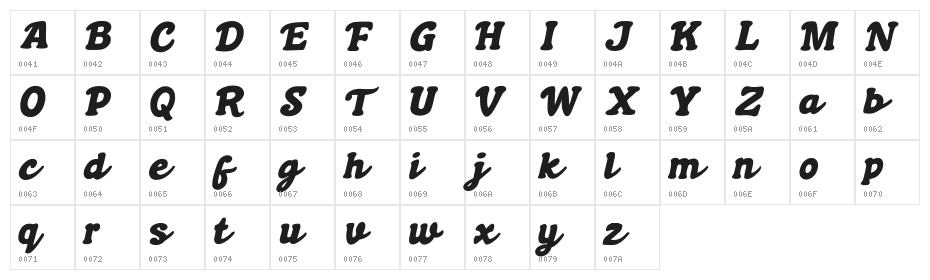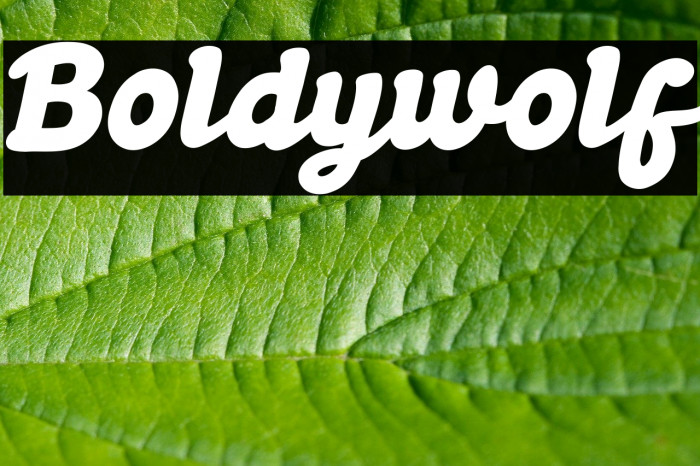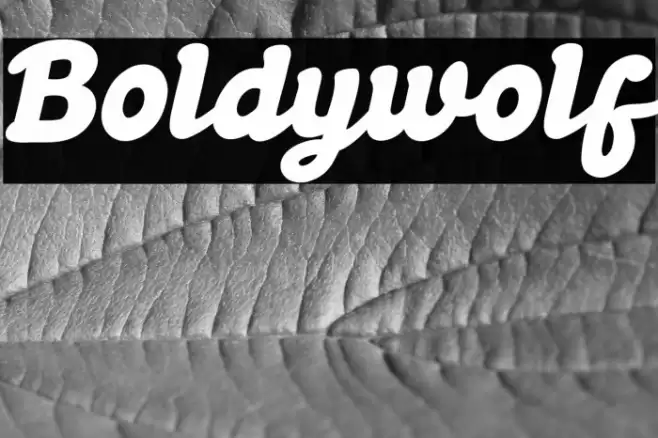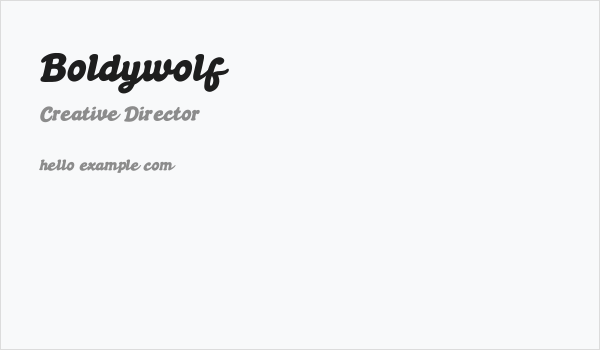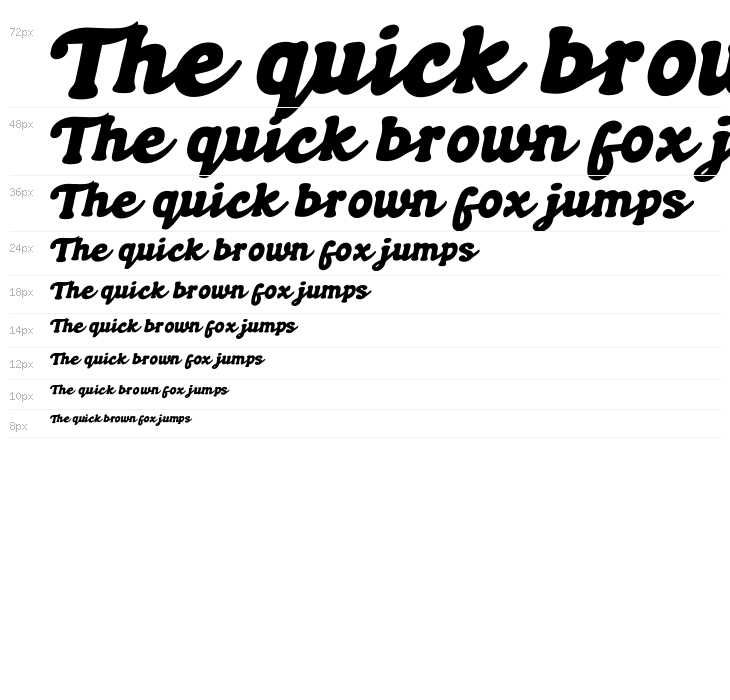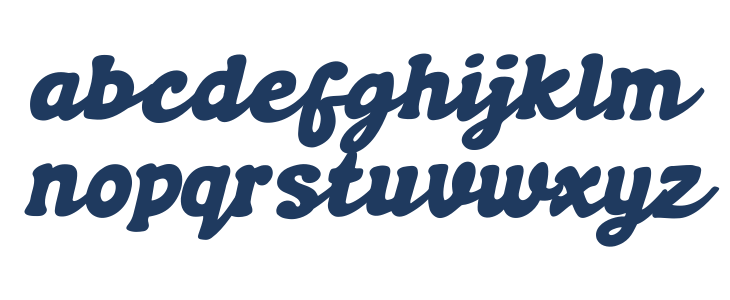
Boldywolf Font
Boldywolf Description
This font features a bold and dynamic script style with a strong presence. The characters are connected, giving it a fluid and continuous appearance. The strokes are thick, enhancing its boldness and making it highly legible even at smaller sizes. The uppercase letters maintain a consistent height, while the lowercase letters have a playful, slightly rounded form that adds a touch of elegance. The font's overall design is reminiscent of vintage signage, making it suitable for projects that require a classic yet impactful look.
| Use Case | Logos, Headlines, Branding |
| Proposed Projects | Ideal for branding, logo design, packaging, and headlines that require a bold statement. |